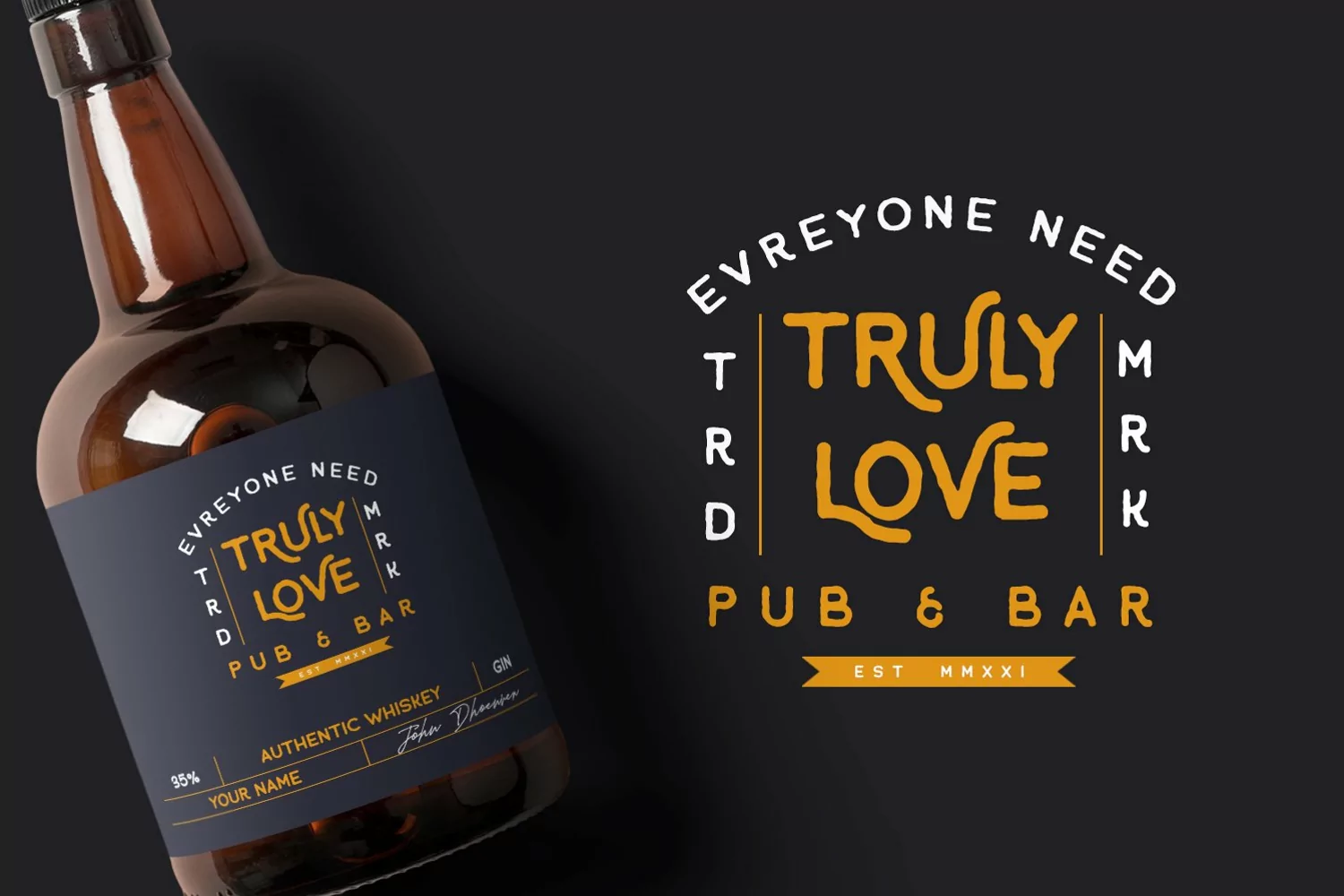
Merton - Vintage Font
Merton Font made carefully to create the perfect texture and suitable for each of your projects also great for Logotype, Branding Design, Logo Design, Digital Lettering Arts, T-Shirt/Apparel, Poster, Magazine, Signs, Advertising Design, and any vintage design needs.
• Tons of glyphs